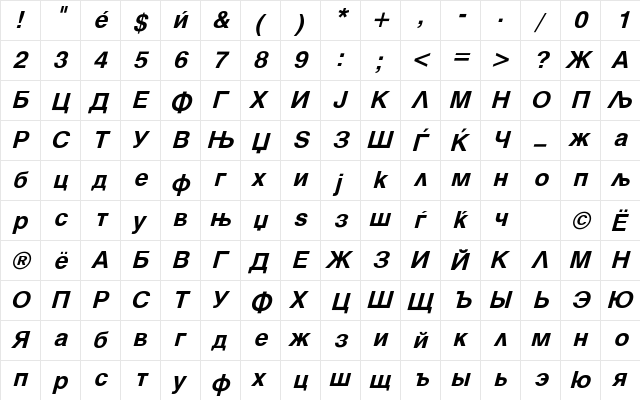
Mak_Hebar_Bold_Italic BoldItalic
Design Context for Mak_Hebar_Bold_Italic Typeface
Mak_Hebar_Bold_Italic is a composed and adaptable typeface that performs quietly and consistently across a wide range of design contexts. The slanted form adds forward momentum and visual energy. The heavy weight commands attention and anchors typographic hierarchies.